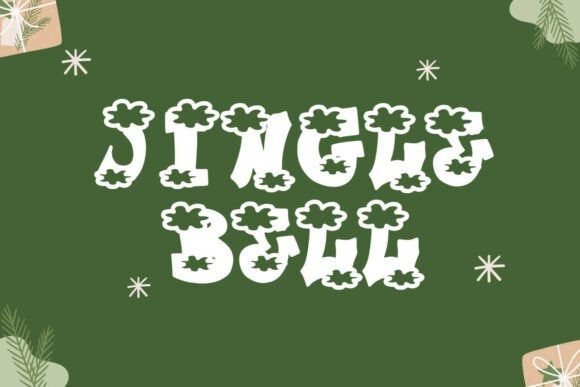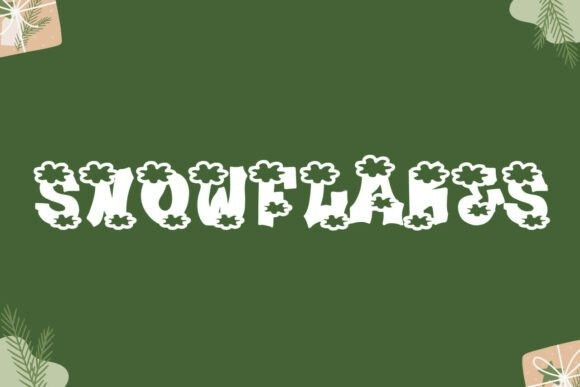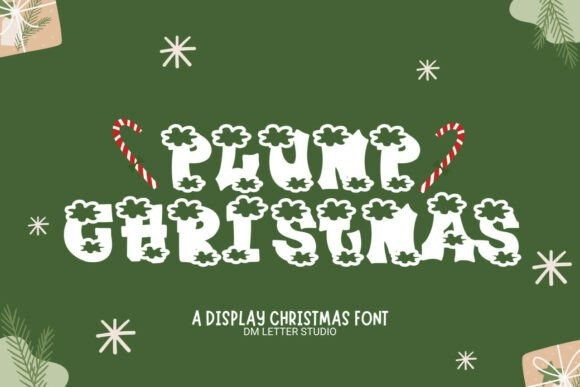
Plump Christmas Font
Plump Christmas Font is the ultimate holiday display typeface, delivering cozy, cheerful energy and a wonderfully rounded, friendly boldness that lights up every festive design.This robust Plump Christmas typeface features wide, clear counters and consistently smooth curves, ensuring superb readability whether used for small gift labels or large banners and apparel.
Its chunky, joyful aesthetic is perfect for instantly creating striking Christmas quotes, advent calendars, party invites, classroom boards, gift labels, and seasonal social media posts. Loved by creators for its clean cutting ability with Cricut, Silhouette, and laser projects, the Plump Christmas font pairs effortlessly with a neat sans or a simple handwritten script to build headlines, captions, and price tags fast.
As a result, one friendly typeface can power your entire holiday collection—from printable decor to cozy pajamas and matching family tees. The bold, tidy forms allow for easy layered effects, such as two-color offsets or soft drop shadows for instant bubble-letter depth.
This highly versatile typeface truly pops on photos and patterned backgrounds, which helps thumbnails stand out in crowded feeds and marketplaces.